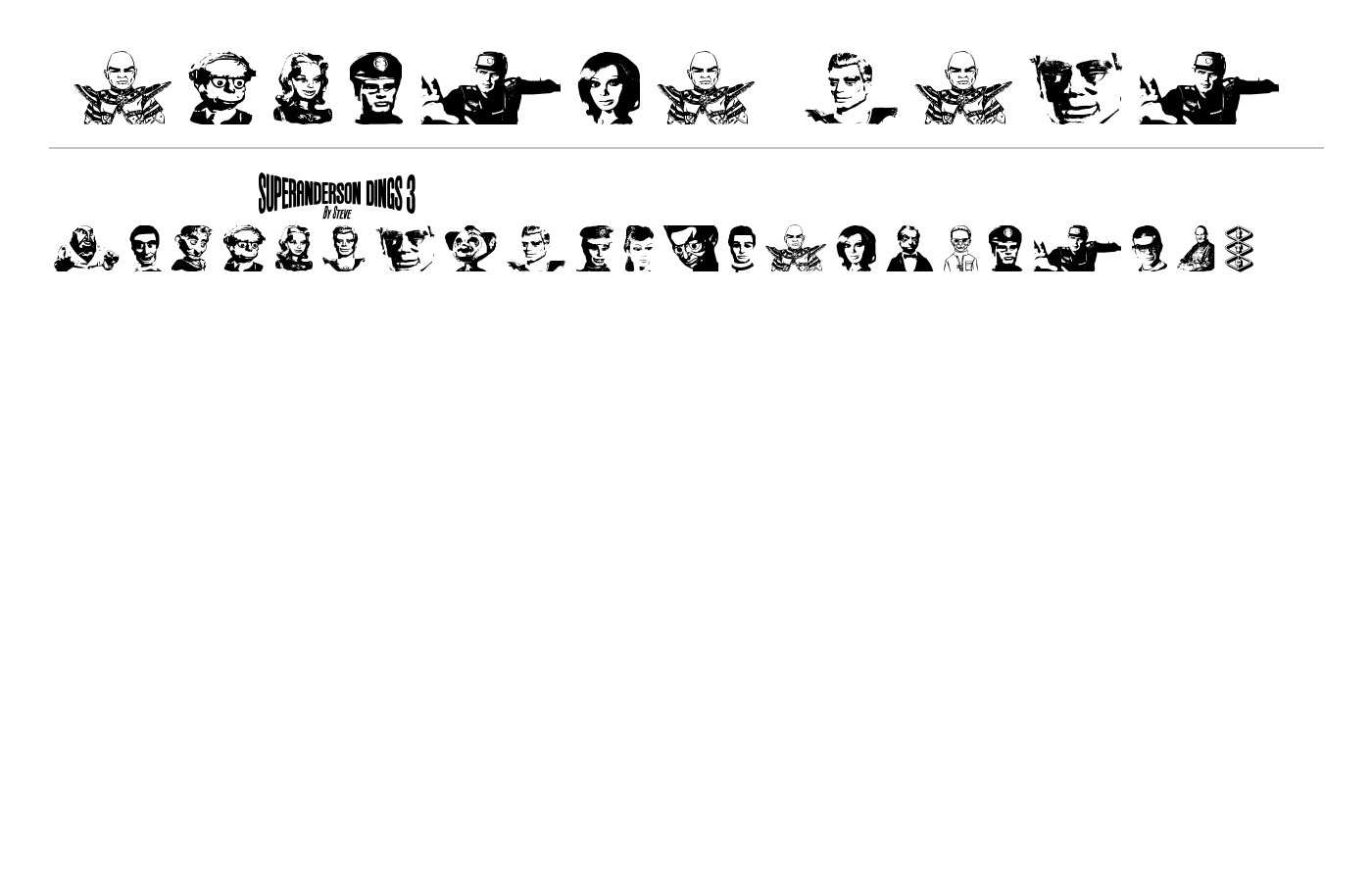
Anderson Dings 3 is a highly distinctive dingbat font featuring intricate, monochromatic portraits and figures instead of traditional alphabet characters. Its bold, detailed illustrations create a strong visual impact, perfect for adding a unique, vintage-inspired flair to creative projects, posters, or branding that seeks an artistic, expressive edge. This font works best where ornamental and eye-catching imagery is desired rather than standard text usage.
Anderson Dings 3 Font
About Anderson Dings 3 Font